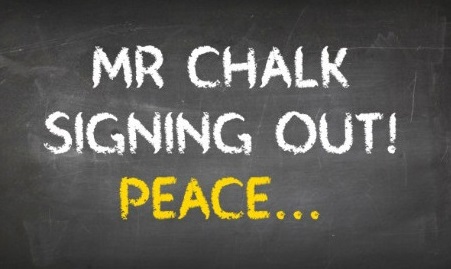
Chalk-like fonts are nostalgic and easy on the eye. Their informal nature is great for websites and posters that want to interact with their visitors in a fun, natural way. They are a good option for projects that have to do with education.
1. Sketchetik by Hiekka Graphics
Sketchetik is a nice-looking font that you can use in a serious work setting as well as an informal one. It comes in 5 different styles – light, regular, bold, black and air. Depending on the style, it can fit different themes. Combining the styles can be a good option too.
Sketchetik by Hiekka Graphics
2. Vintage One by Jake Luedecke
Vintage One is on the border between chalk-like and crayon-like. It is also a combination of a handwritten and printed font. The font is completely free, and it includes numbers, punctuation, and symbols too. It can stir up your imagination when experimenting with design.
Vintage One by Jake Luedecke
3. Right Chalk by Imagex
Right Chalk is a specific chalk-like design. The curvy, thick letter design hints at someone writing while holding chalk horizontally. It is an attractive font design for people who like a challenge. It’s only right for certain, informal contexts. This is also a free font.
Right Chalk by Imagex
4. Squeaky Chalk Sound
This font comes from an unknown author, and it is unique and messy. It tempts you to use it, but at the same time, you may get an uncomfortable feeling just looking at it. The font looks like someone pressed a chalk to the blackboard with all their power and then tried to write something.
Squeaky Chalk Sound
5. Mr Chalk Font by Behance
Mr Chalk Font is a smooth font that goes well with any color you can choose. The letters are straight and formal, so it feels more serious than some other chalk fonts. This makes it a great option for workplace projects that could use a chalk-like font.
Mr Chalk Font by Behance
6. Charcoal by Jonathan S. Harris
The Charcoal font stays true to its name. Each letter has completely different strokes, so when you type something, you can capture that natural feeling of chalk. Designers enjoy this one because they can use it in many contexts.
Charcoal by Jonathan S. Harris
7. Chalk Hand Lettering Pack by Behance
It’s not easy to find a good cursive chalk-like font. This one can fit a wide range of contexts. It has a solid fill and looks great in all the lighter colors, used on a dark background.
Chalk Hand Lettering Pack by Behance
8. Hand Drawn Chalk Font by Behance
Hand Drawn Chalk Font by Behance
9. Chalkboard by Adena Arviso
This is another cursive chalk-like font that has a natural touch. It may not be as easy to adapt or modify it, but it is still great on its own. The font doesn’t contain any symbols besides basic punctuation. The letters are unique and they don’t all the same opacity and hardness.
Chalkboard by Adena Arviso
10. Coalhand Luke by JOEBOB Graphics
Coalhand Luke is stylistically one of the best handwritten fonts. The lines are smooth, and the letters blend perfectly. The font contains many symbols, and it works with all the colors and backgrounds at your disposal. If you’re planning to get this font for personal use only, it is completely free.
Coalhand Luke by JOEBOB Graphics
11. Neat Chalk by Darrel Flood
Neat Chalk is a great font because of its versatility. It won’t look out of place in a formal project, but you can easily fit it to a party poster too. The font adapts perfectly to all colors and backgrounds, and it is completely free for personal use.
Neat Chalk by Darrel Flood